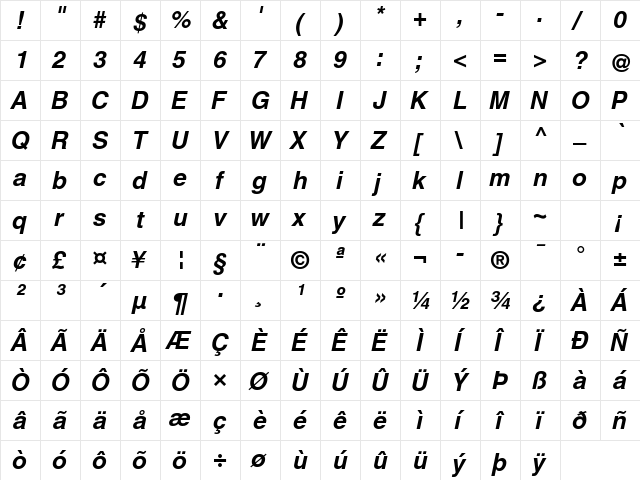
Helvetica World Bold Italic
| Foundry | Linotype GmbH |
| Designer | Linotype Design Studio |
Design Context for Helvetica World Typeface
Helvetica World is a composed and adaptable typeface that performs quietly and consistently across a wide range of design contexts. The dynamic lean of this cut emphasises speed and emphasis in any layout. Its bold stroke weight gives it real presence on the page.
Pro Tip: Use Helvetica World for emphasis, pull quotes, and subheadings where its slanted energy can add rhythm to the layout.